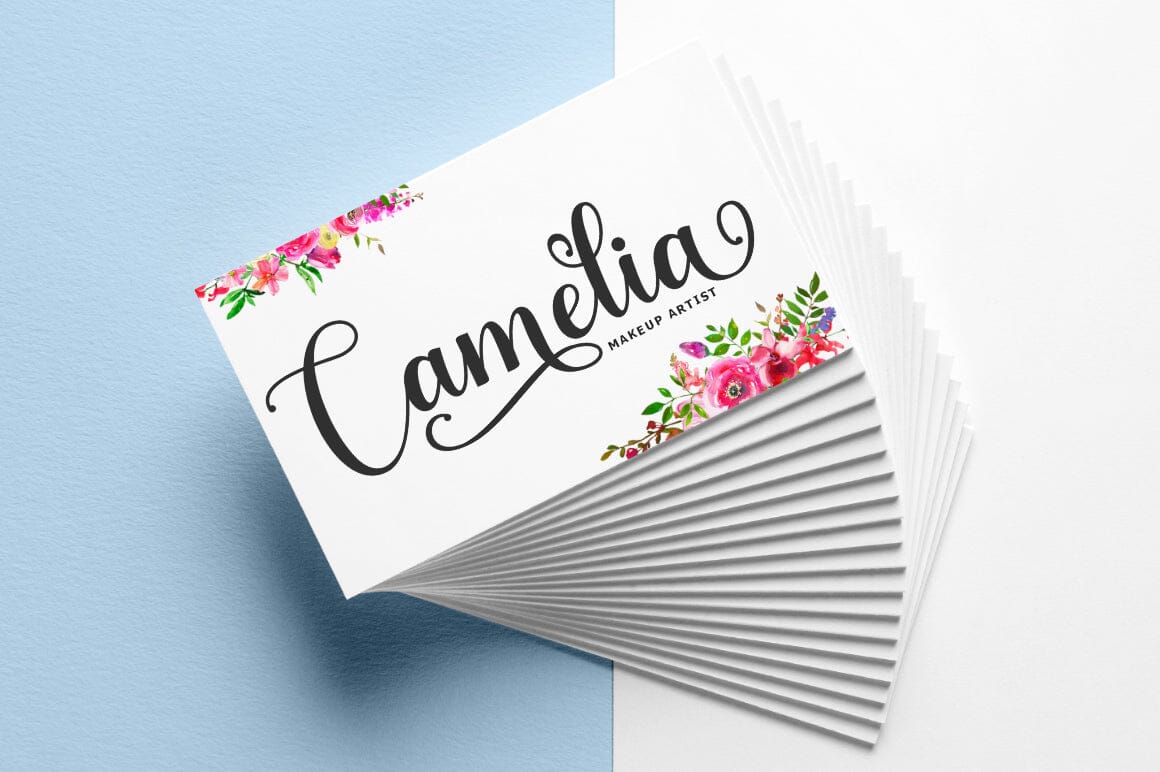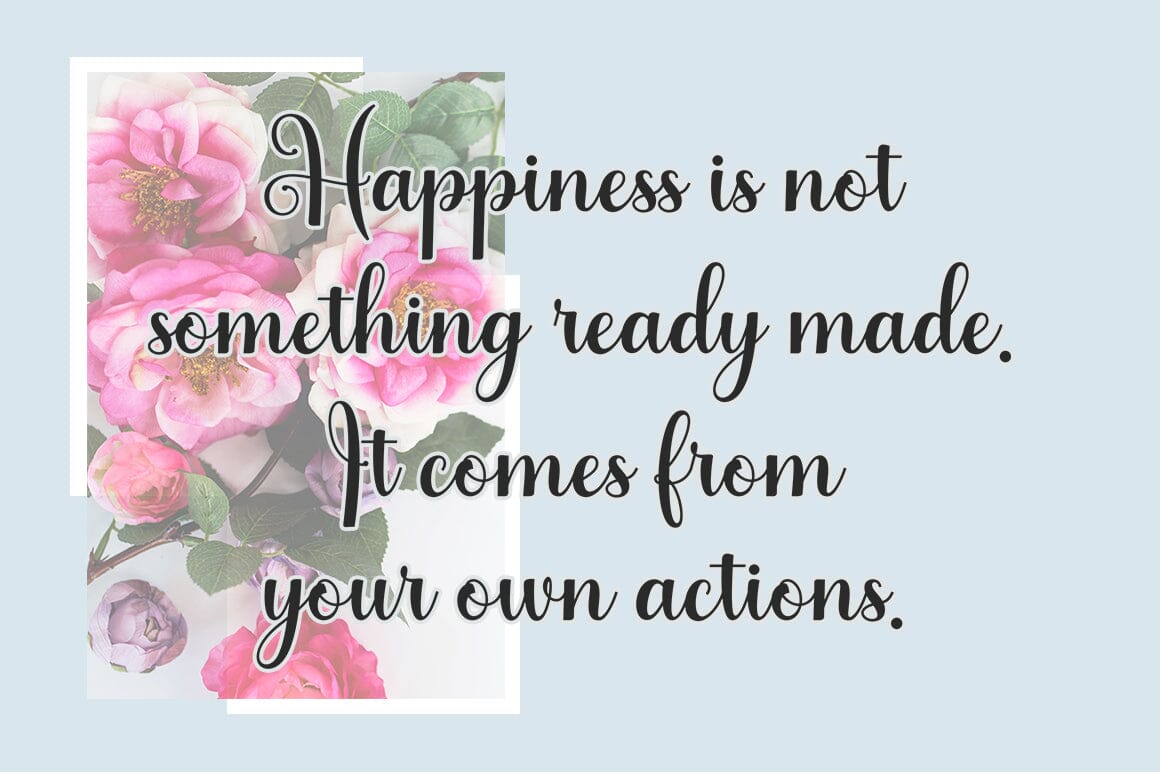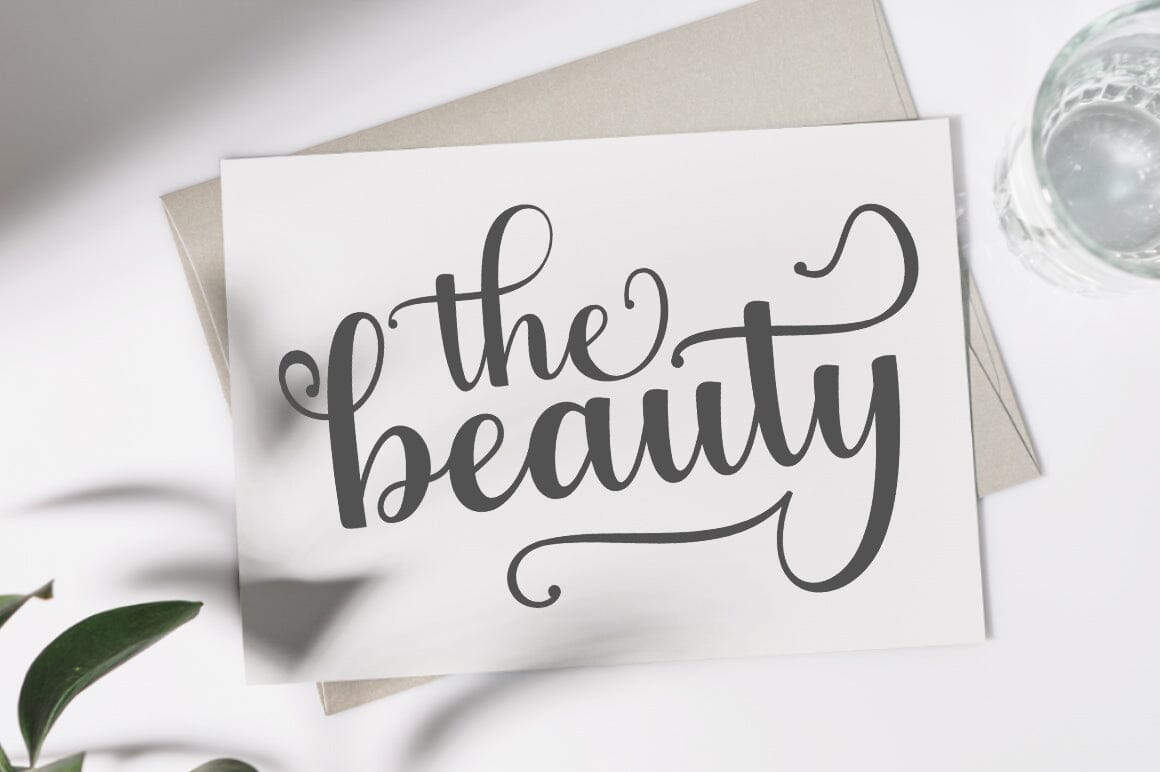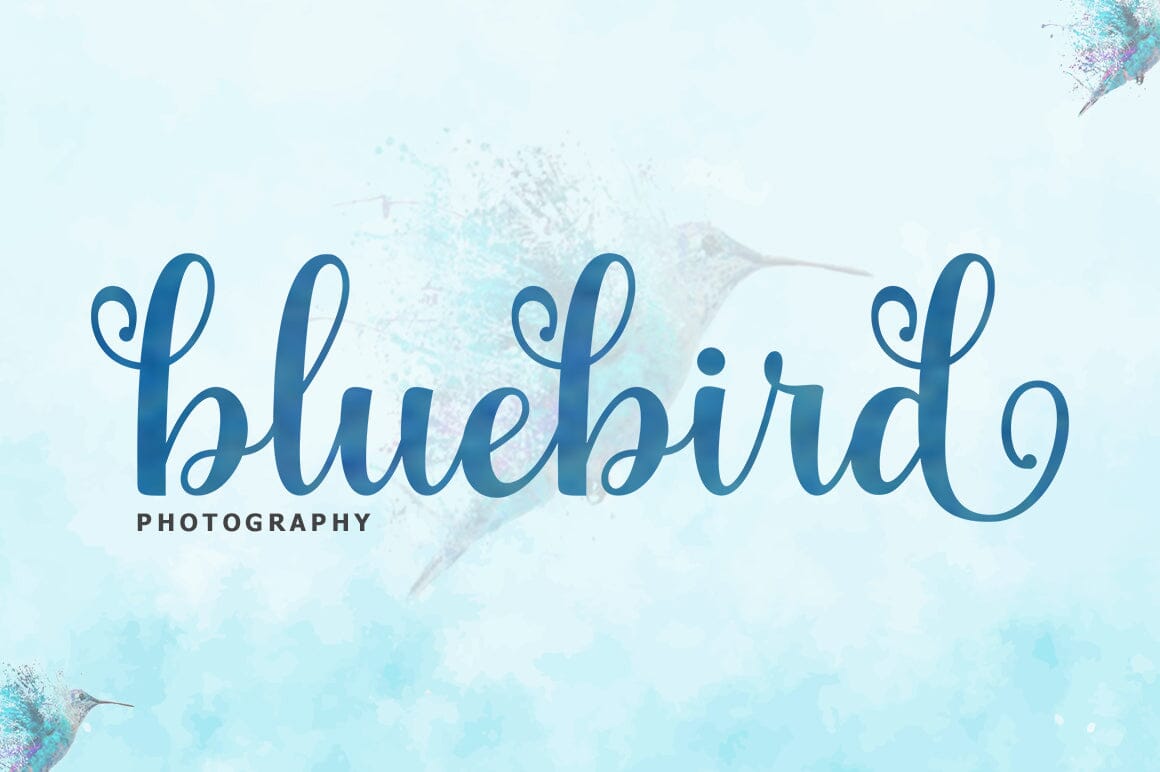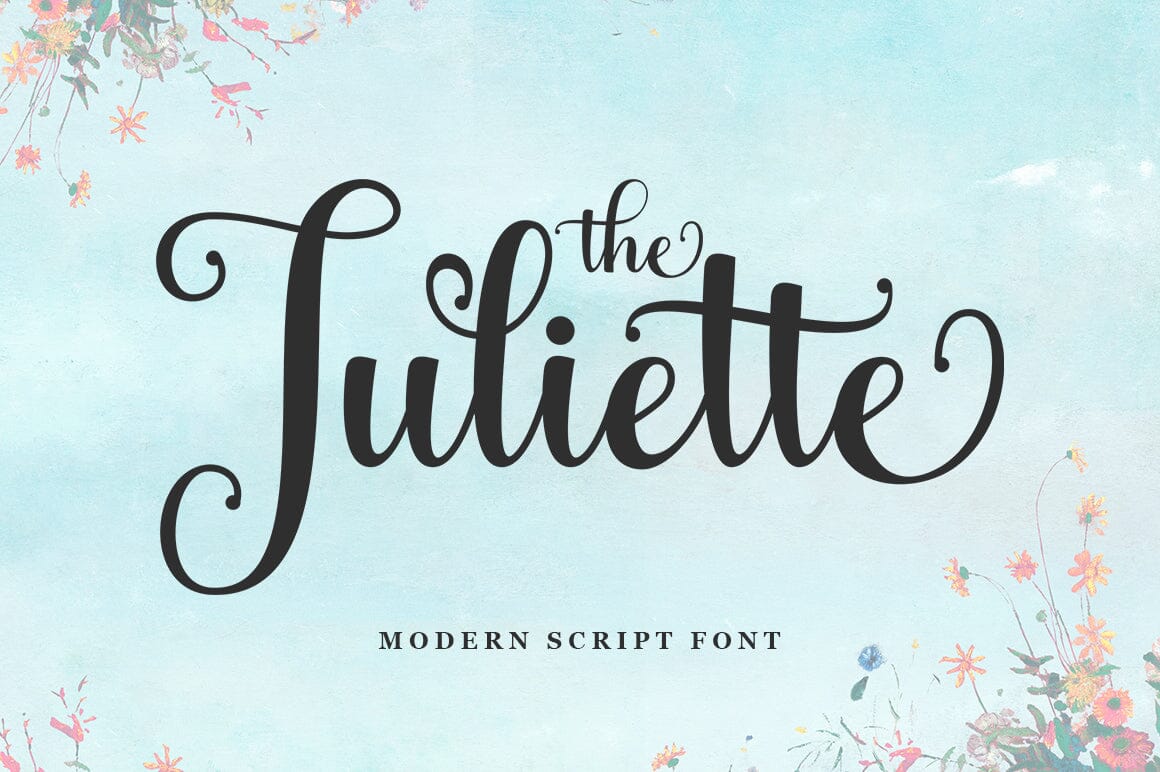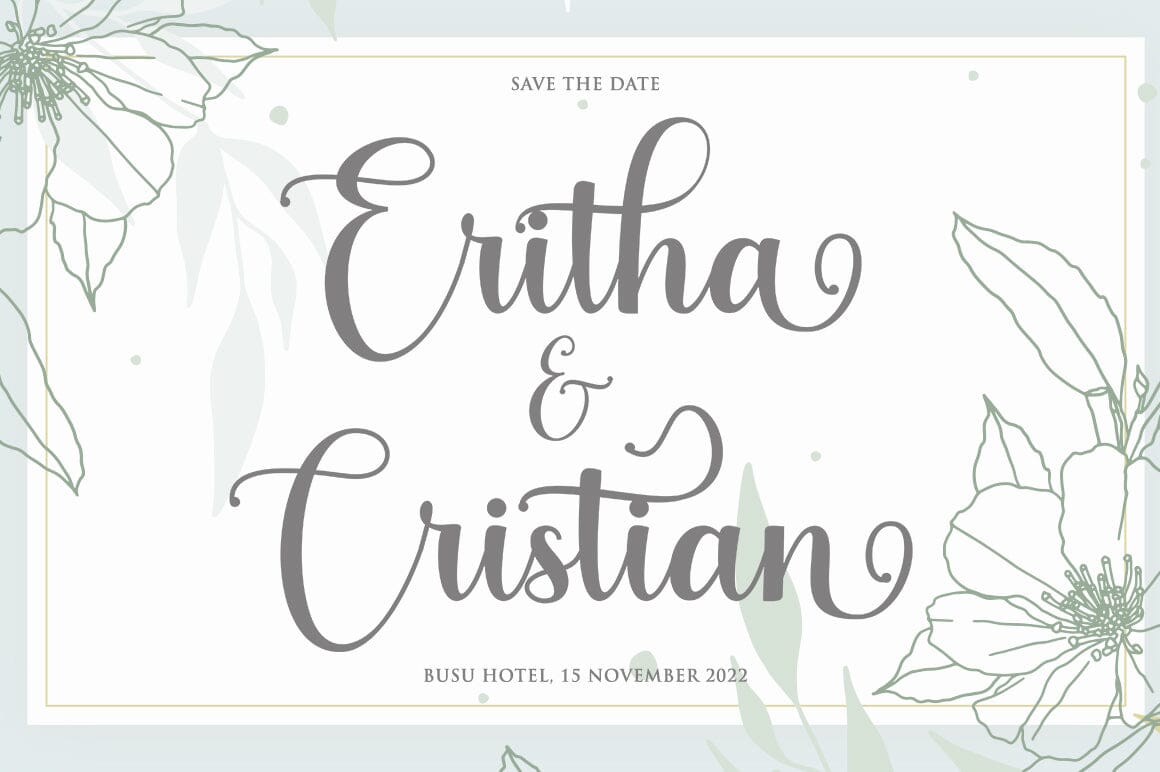
The Juliette Script
About The Juliette Script
The Juliette Script is a modern script typeface with characters that dance along the baseline. It has a casual and yet elegant touch. It can be used for various purposes such as logos, wedding invitations, headings, t-shirts, letterhead, signage, lables, news, posters, badges etc. The fonts include OpenType features with stylistic alternates, ligatures and multiple language support. To enable the OpenType Stylistic alternates, you need a program that supports OpenType features such as Adobe Illustrator CS, Adobe Indesign & CorelDraw X6-X7, Microsoft Word 2010 or later versions. There are additional ways to access alternates/swashes, using Character Map (Windows), Nexus Font (Windows), Font Book (Mac) or a software program such as PopChar (for Windows and Mac).